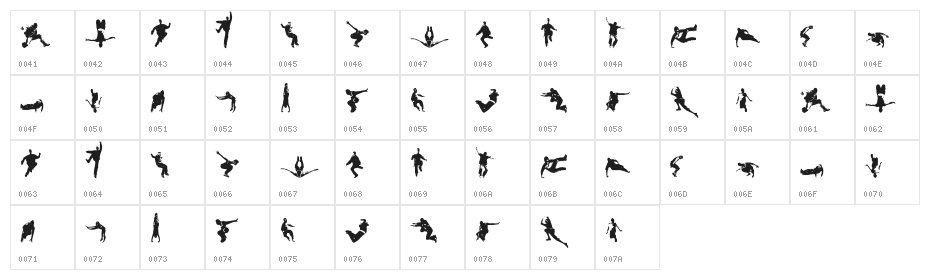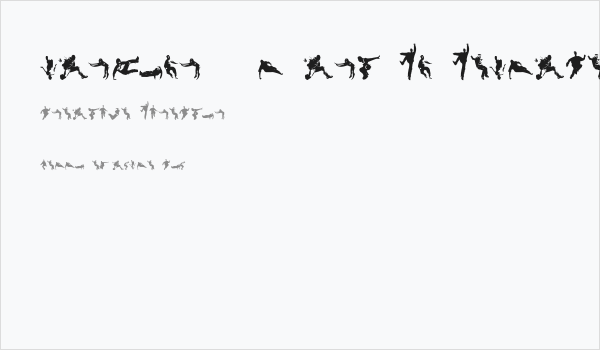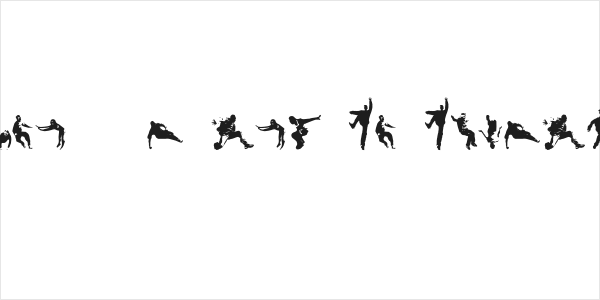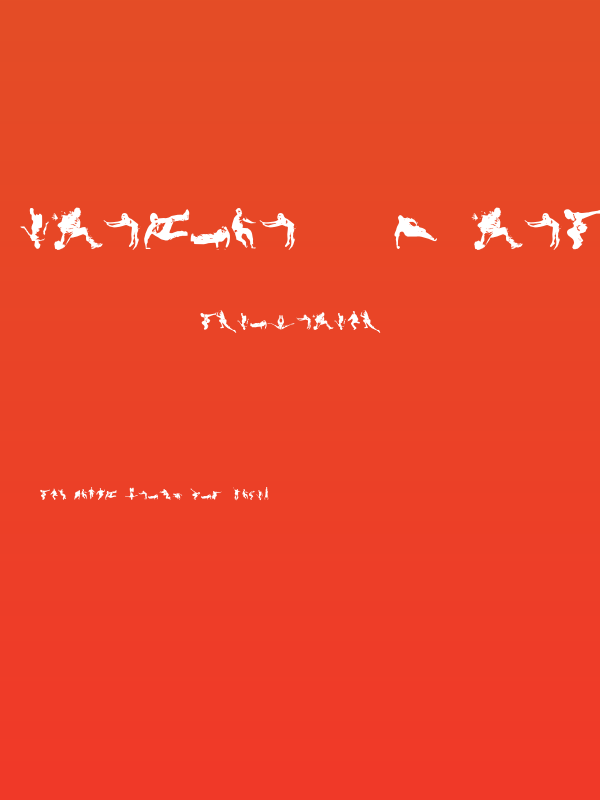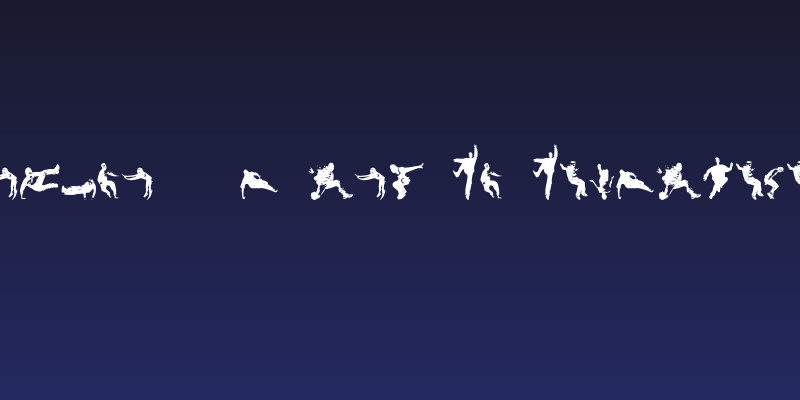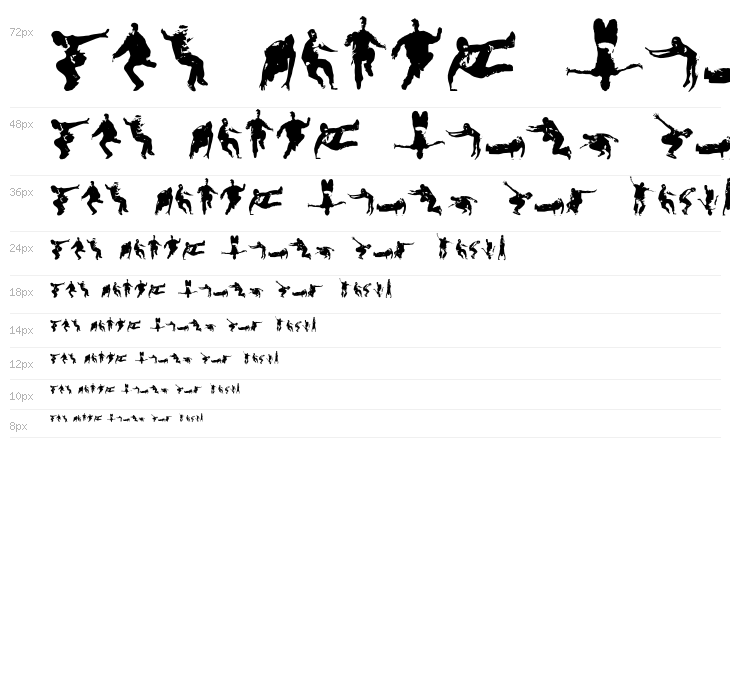
Parkour - L art du deplacement Font
Parkour - L art du deplacement Description
A decorative display font composed of dynamic silhouettes of people performing parkour moves, each character formed by a unique action pose, resulting in a highly energetic and unconventional letterform style.
| Overall Style | Decorative, Urban, Energetic |
| Use Case | Headlines, Posters, Logos, Event Titles |
| Proposed Projects | Posters, event branding, extreme sports promotions, youth culture campaigns, creative headlines. |